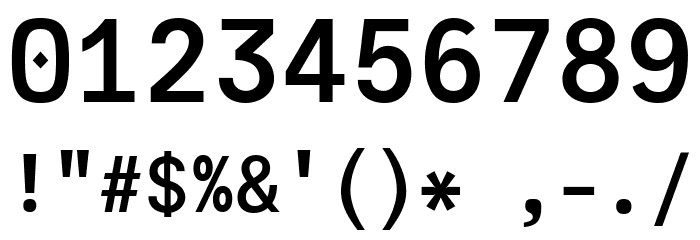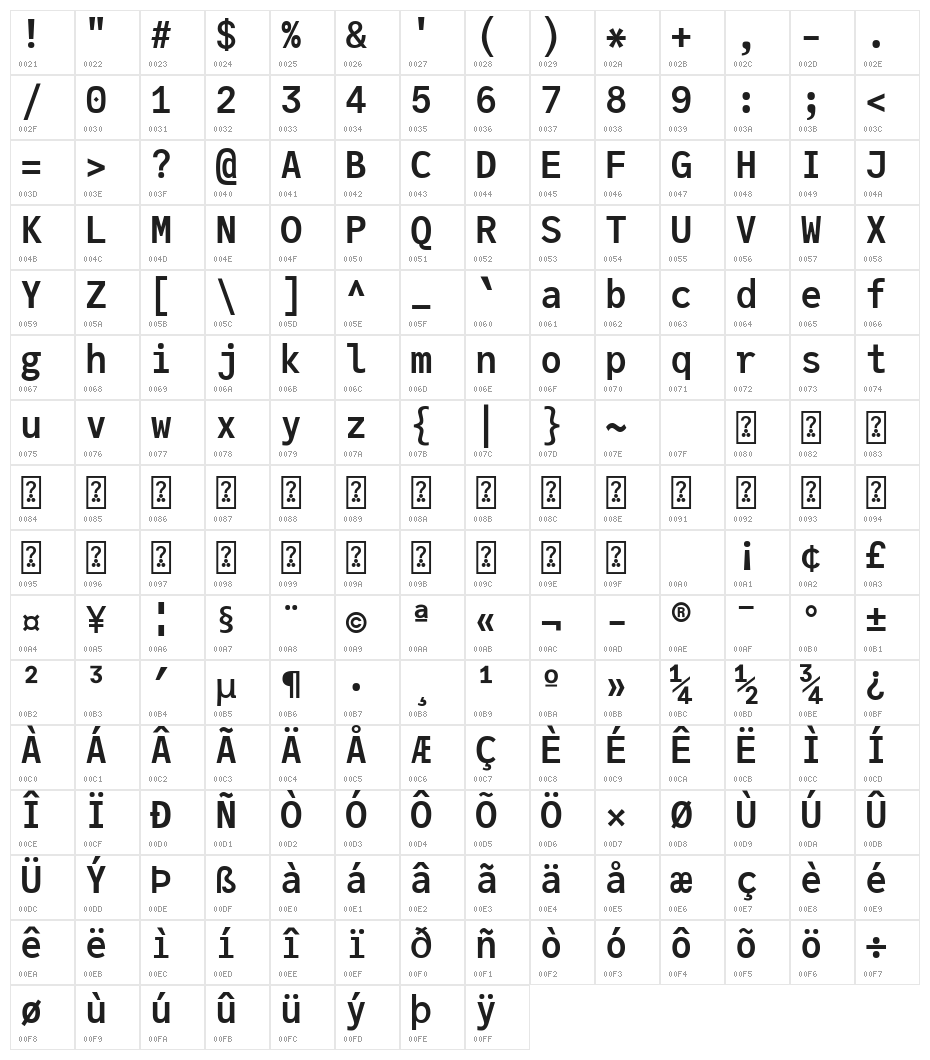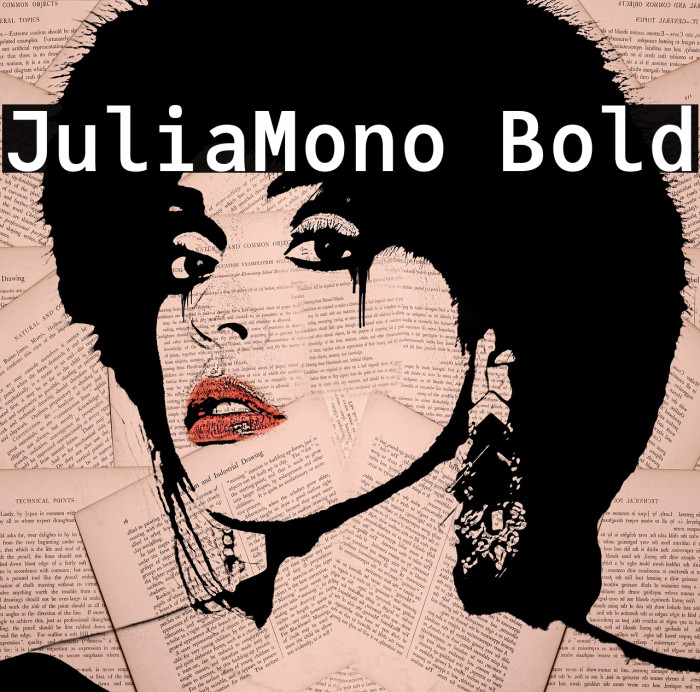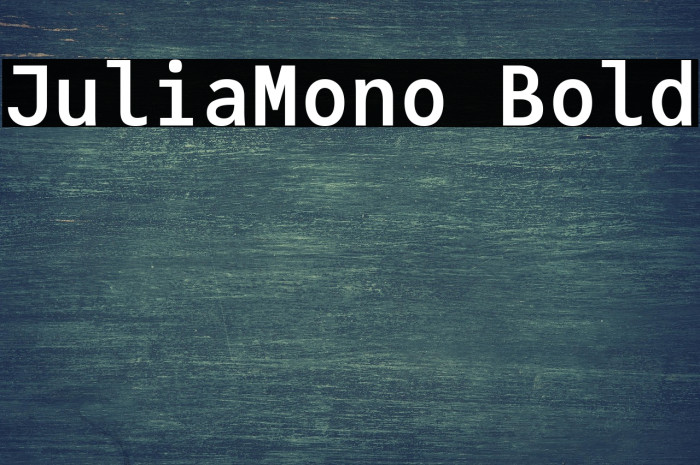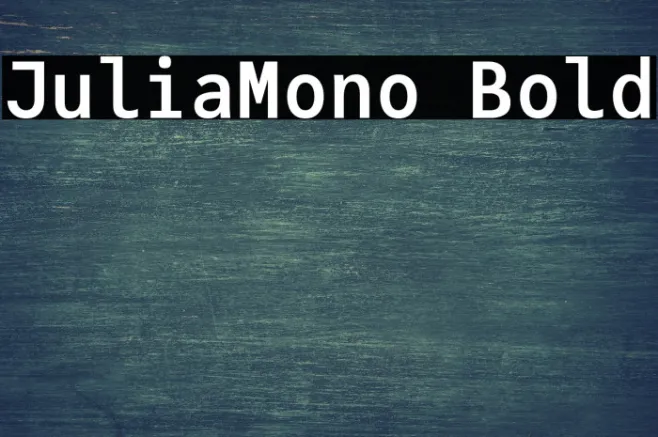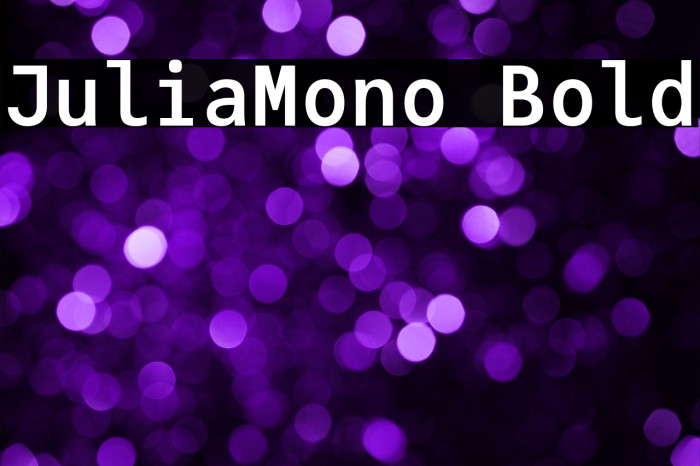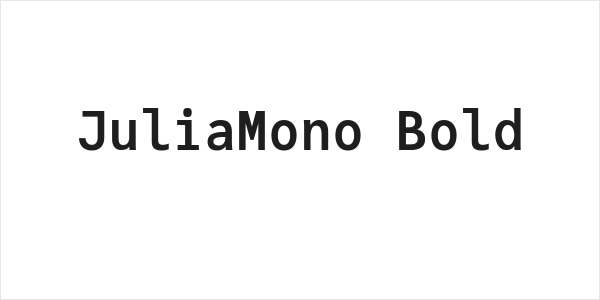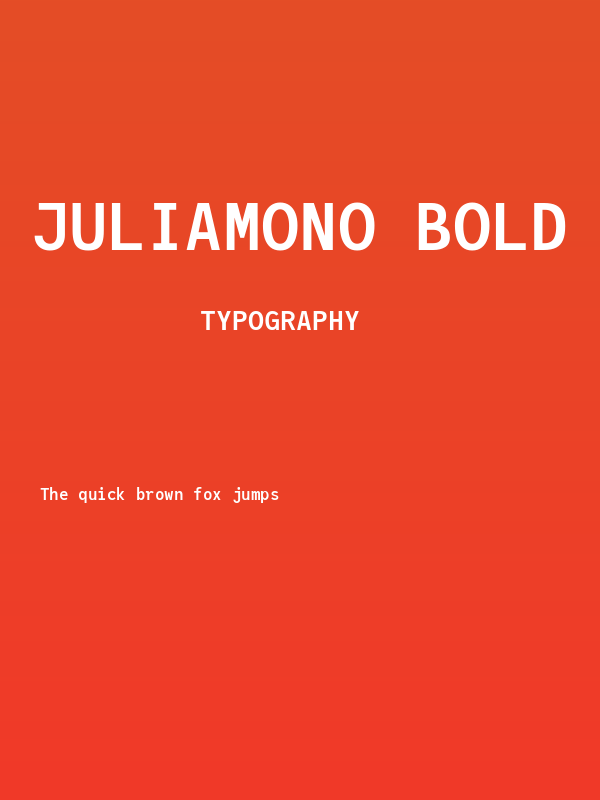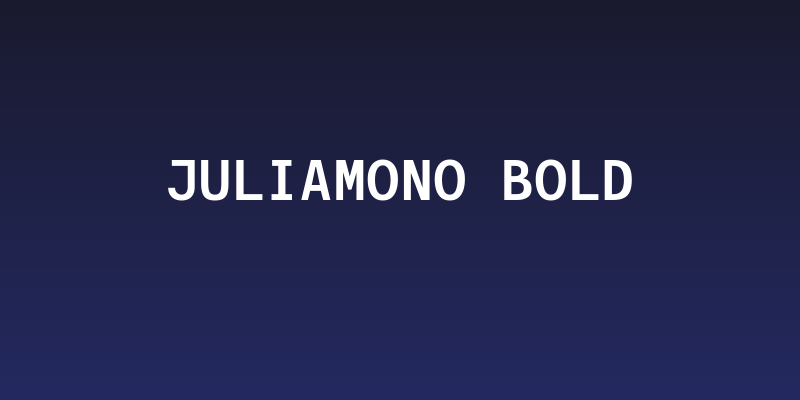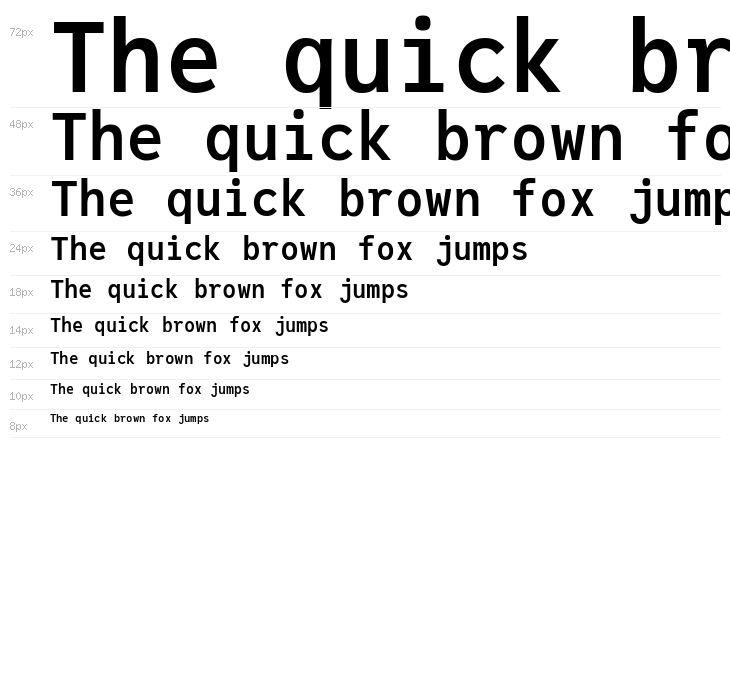
JuliaMono Bold Font
JuliaMono Bold Description
This typeface is a monospaced font characterized by its bold and clean lines, offering a modern and utilitarian aesthetic. Each character is designed with equal width, providing a uniform and orderly appearance. The font features a high level of legibility, making it suitable for coding and technical documentation. Its bold weight enhances visibility and impact, while the geometric shapes of the characters contribute to a contemporary feel. The spacing between characters is balanced, ensuring readability without compromising on style. The font's simplicity and clarity make it versatile for various applications, from digital interfaces to print media.
| Use Case | Coding, Technical documentation |
| Proposed Projects | Ideal for coding, technical documentation, digital interfaces, and print media. |